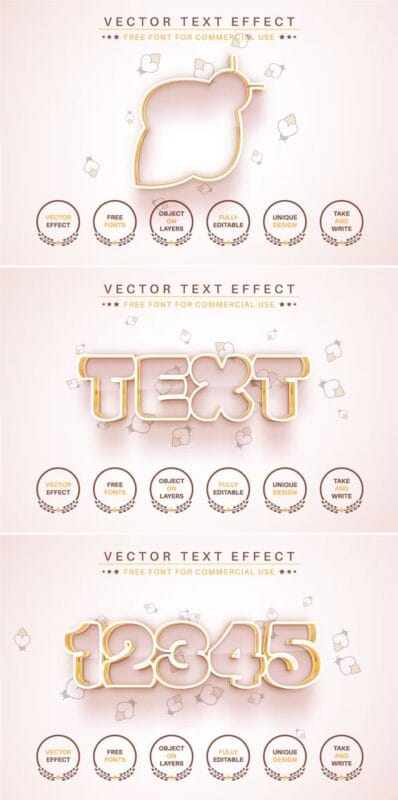
Gold Wasp Editable Text Effect Font Style
Here in this post, you can Free Download Gold Wasp Editable Text Effect Font Style JQ4MJMB compress files through the below link. new “Gold Wasp” text effect. Just type your word and the effect will be applied! Be as creative as you want to express yourself with this exclusive “golden wasp”. The effect is perfect for any project that needs a unique and practical touch – anything else your imagination takes you! You Can Also Free Download Sport Football Editable Text Effect Font Style.
Gold Wasp Editable Text Effect Font Style